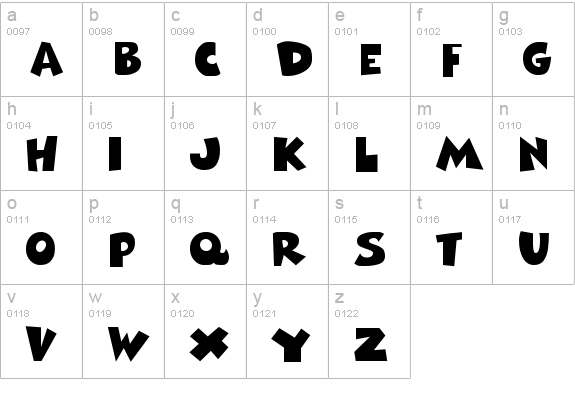
Comix Heavy Regular FM is a heavy, high-impact variant in the Comix typeface family \xE2\x80\x94 well suited to high-impact headlines, posters, and display advertising.
Comix Heavy Regular FM font is a bold and eye-catching typeface designed for adding impact to your designs. With its strong and sturdy appearance, this font is perfect for headlines, posters, and other graphic design projects that require a bold statement. The thick strokes and rounded edges give it a playful yet commanding presence on the page.